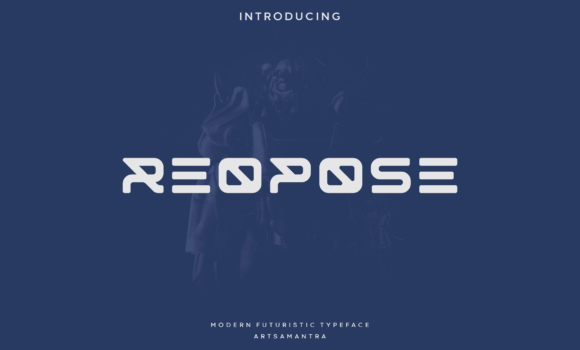
Reopose Font – Free Download Introduction to Reopose Font Reopose is a futuristic font that we designed with an original touch for your needs. 📸 Preview Gallery 3 images 📌 Product Name Reopose Font 👤 Author Letterna 📂 Category Explore